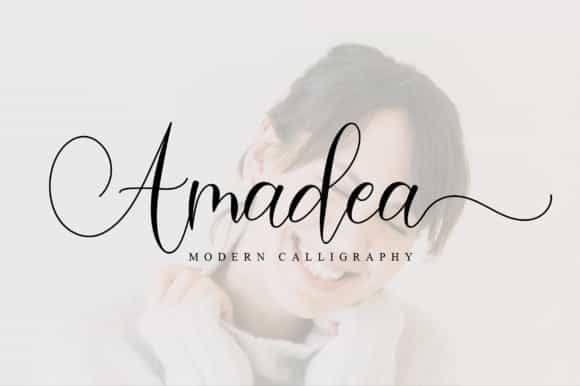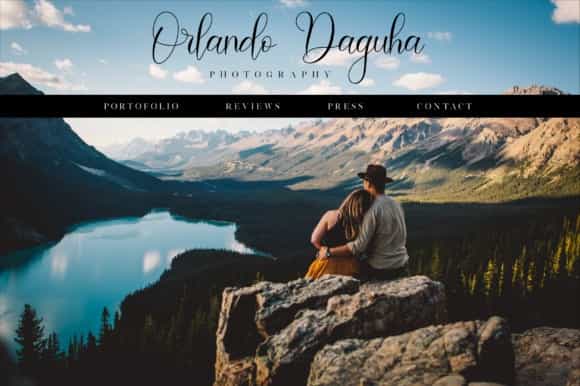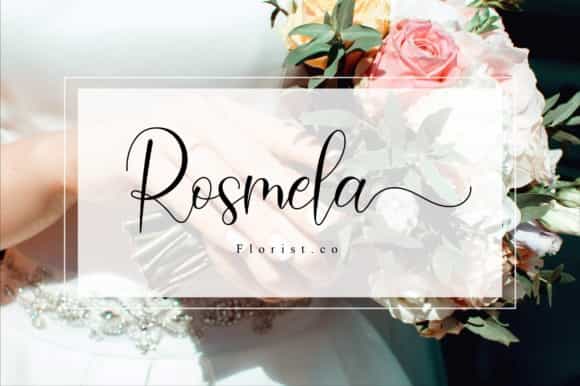
Amadea is a calligraphy font that is both fun and cute. The characters are dynamically rounded that is why it makes the font an ideal one for creating beautiful crafts. Amadea is filled with PUA encoded swashes, which will enable you to add a decorative element within seconds.